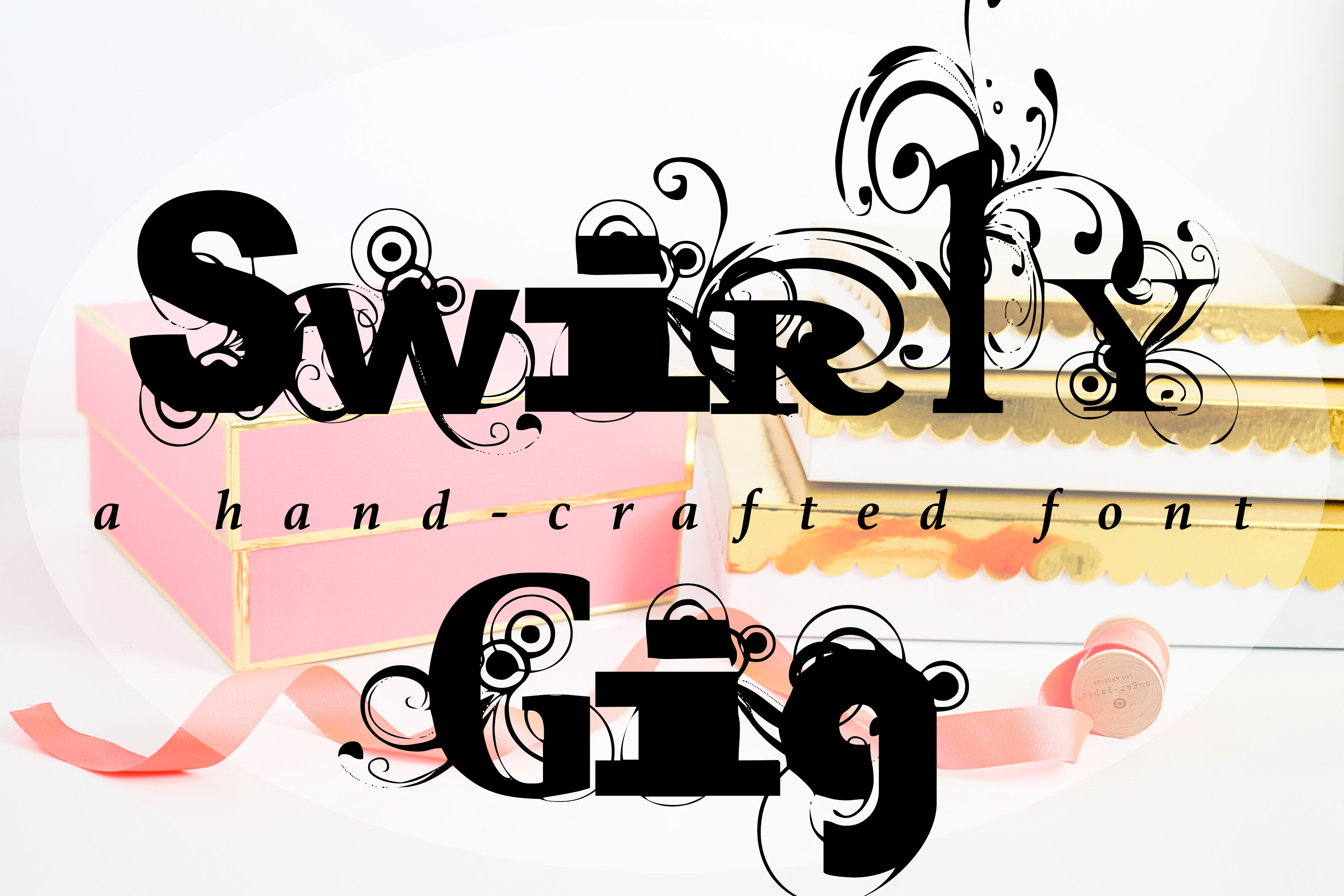
SWIRLY GIG Hand Crafted Font
Swirly Gig is a fun, outgoing hand-crafted font! Available in a TTF file, this font has a full alphabet, numbers, and symbols.